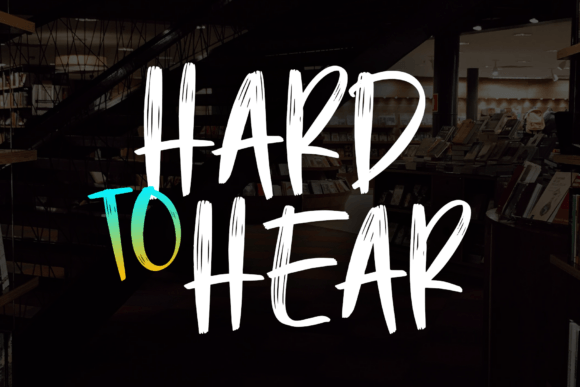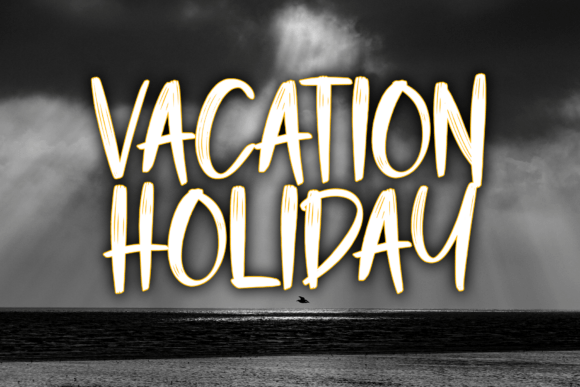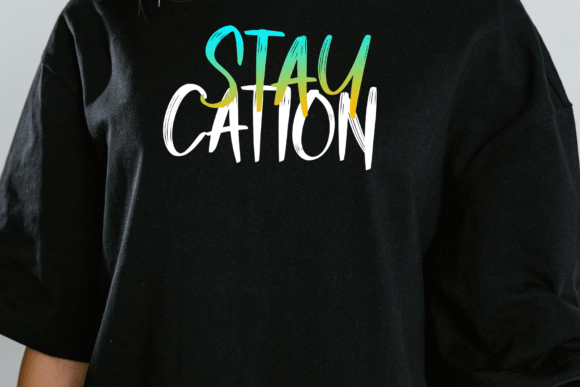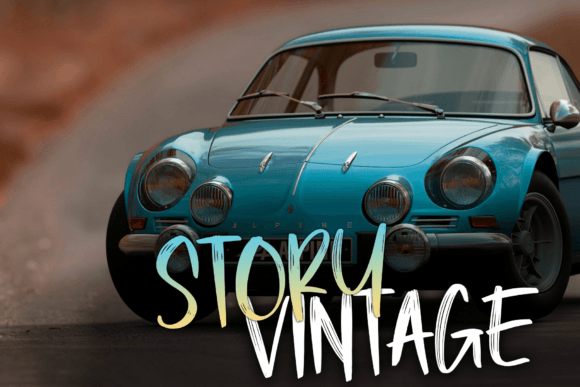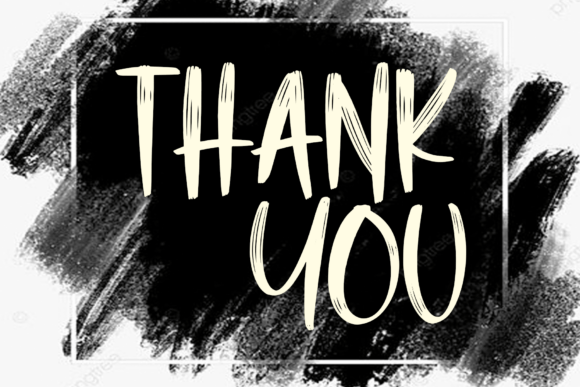
The Crazy Vintage Font: A Timeless Classic for Modern Designs
A Personal Review: What I Love (and What I Don’t)
- ✨ Stunning brush strokes: The font’s brush strokes are incredibly realistic and varied, giving it a truly hand-crafted feel.
- ✅ Contemporary vibe: Despite being inspired by classic calligraphy, Crazy Vintage has a distinctly modern atmosphere that works well with a wide range of designs.
- ✅ Impeccable form: The font’s letterforms are beautifully balanced and proportioned, making it a joy to work with.
- 🤔 Limited multilingual support: While Crazy Vintage supports several languages, it’s not a truly multilingual font – so if you need to work with non-Latin scripts, you might want to look elsewhere.
- ⚠️ No built-in italics: While the font does have some stylistic alternates, it doesn’t have traditional italic or oblique versions – which might be a limitation for some projects.
The Story Behind Crazy Vintage
According to the font’s creators, Crazy Vintage was inspired by the timeless beauty of classic calligraphy. They wanted to create a font that would capture the essence of traditional brush lettering, but with a distinctly modern twist. The result is a font that’s both elegant and playful, sophisticated and approachable.
| Is Crazy Vintage suitable for body text? | While Crazy Vintage is a beautiful font, it’s best suited for headlines and display text. For body text, you might want to choose a more traditional serif or sans-serif font. |